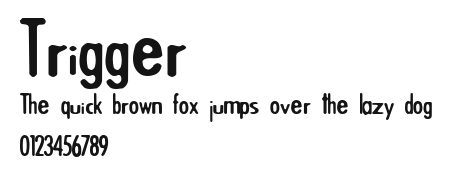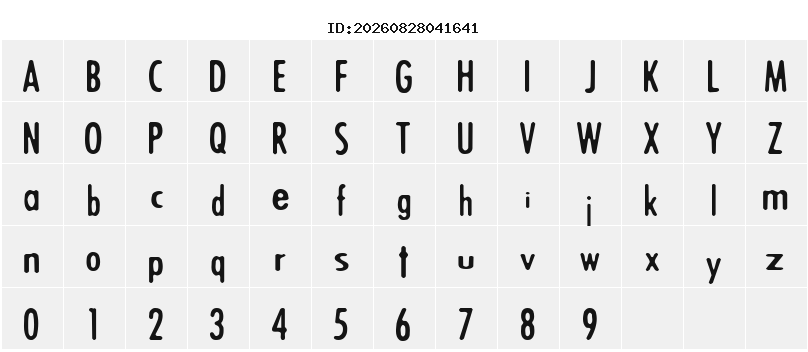
• Font Name: Trigger
• Font Style: A
• Font ID: Altsys Fontographer 4.1 Trigger A
• Full Font Name: Trigger A
• Version: Altsys Fontographer 4.1 11/10/97
• PostScript Name: TriggerA
About Trigger.ttf
Trigger.ttf is a modern, elegant sans-serif font designed for ultimate readability and visual harmony. Perfect for branding, headlines, web design, and print materials.